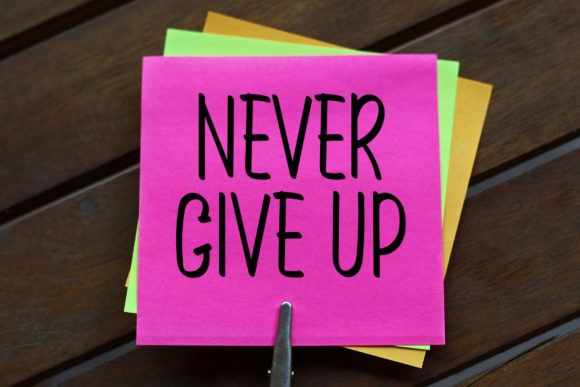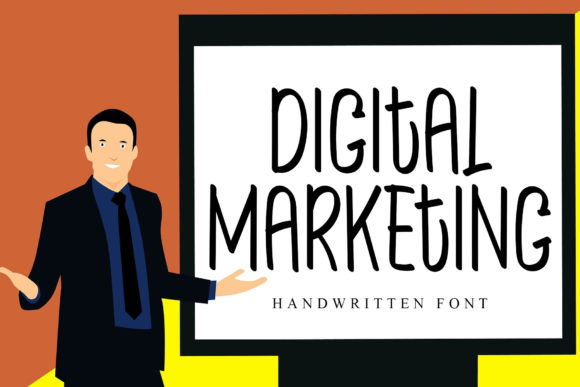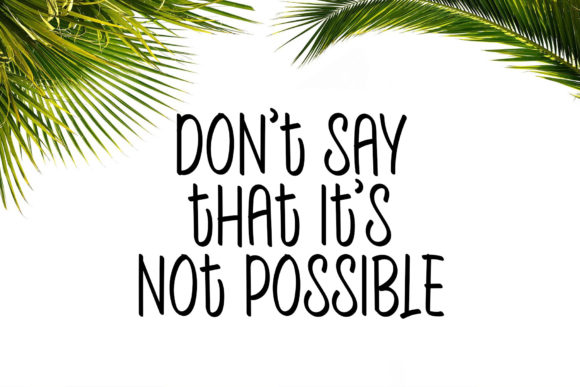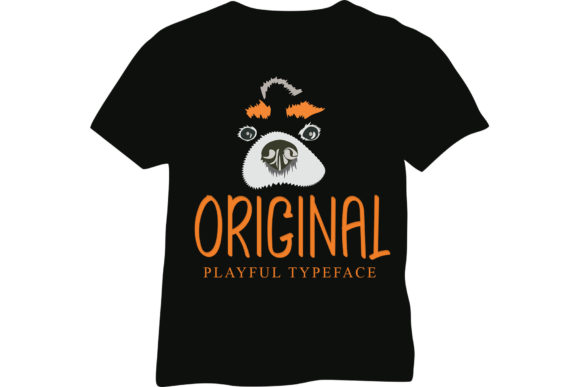
Meet the Font That Will Bring a Touch of Whimsy to Your Designs
Have you ever stared at a blank canvas, trying to come up with the perfect idea for a project? The blank page stares back at you, taunting you with its emptiness. But then, something magical happens – you start doodling, and suddenly, the creativity flows. You’re sketching out a rough outline, and your hand moves effortlessly across the page, bringing your idea to life. That’s exactly what happens when you work with the right tools, like the Baby Dinosaur Font.
This simple and relaxed handwritten font is more than just a design element – it’s a key to unlocking your creative potential. With its versatility, the Baby Dinosaur Font can fit a wide range of creations that require a casual touch. Whether you’re designing a logo, a social media post, or a children’s book, this font is sure to bring a smile to your face and a touch of whimsy to your designs.
Baby Dinosaur Font Key Features
- Unique Characteristics: The Baby Dinosaur Font features a playful, hand-drawn design with rounded edges and soft lines, making it perfect for children’s books, educational materials, and other applications where a friendly and approachable tone is desired.
- Character Set: The font includes a comprehensive set of characters, including uppercase and lowercase letters, numbers, punctuation marks, and special characters, as well as a range of decorative elements and icons.
Designer Review: Baby Dinosaur Font
Overall, I’m quite impressed with the Baby Dinosaur Font. The design is playful, fun, and immediately conveys a sense of whimsy. ✨ I love how the font’s irregularities and imperfections give it a hand-drawn feel that’s hard to replicate with traditional fonts. The font’s boldness and expressive quality make it perfect for headings and titles in children’s books, educational materials, and even branding for kids’ products.
The Baby Dinosaur Font also excels in its versatility. It’s suitable for both digital and print media, and its legibility is surprisingly good considering its playful nature. ✨ I appreciate how the font’s designers have thoughtfully included a range of weights and styles to cater to different design needs.
- ⚠️ The font’s irregularities may not be suitable for formal or professional applications.
- ⚠️ The font’s expressiveness can sometimes make it difficult to read at small sizes.
- ⚠️ The font’s lack of standard ligatures and punctuation styles may require additional design effort to achieve consistency.
Overall, I think the Baby Dinosaur Font is a great addition to any designer’s toolkit. Its unique character and versatility make it an excellent choice for projects that require a playful and imaginative touch.
The “Baby Dinosaur Font” is perfect for creating playful and whimsical designs, such as:
Children’s party invitations and decorations
Illustrations for children’s books and magazines
Designs for kids’ clothing and accessories
Q: What is the character set of the Baby Dinosaur Font?
The Baby Dinosaur Font includes a comprehensive character set that includes Latin, Cyrillic, and Greek alphabets, as well as a range of punctuation and special characters. This makes it suitable for use in a wide range of languages and applications.